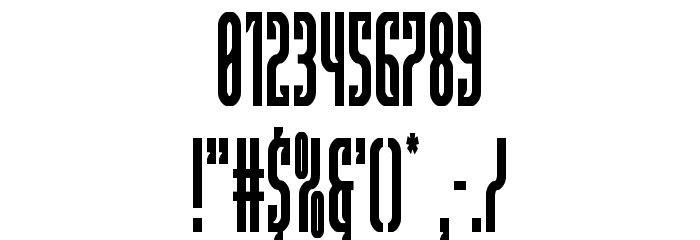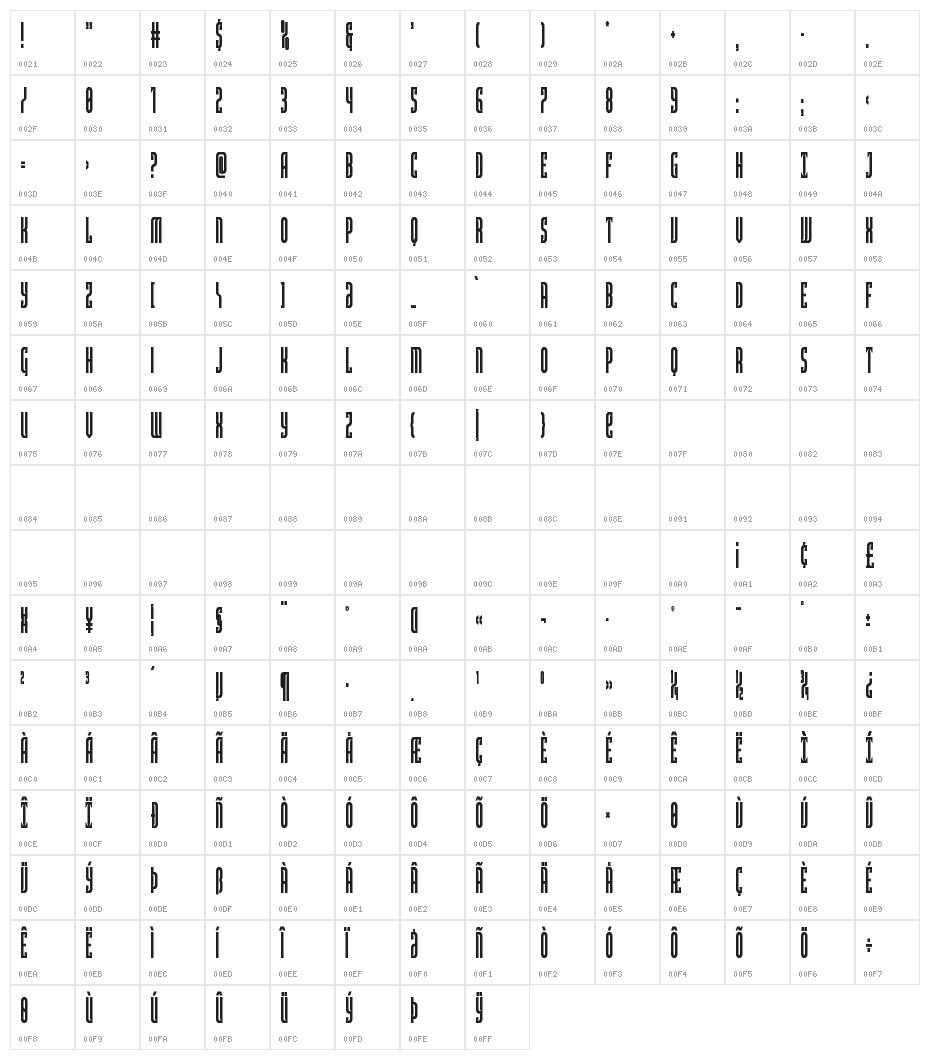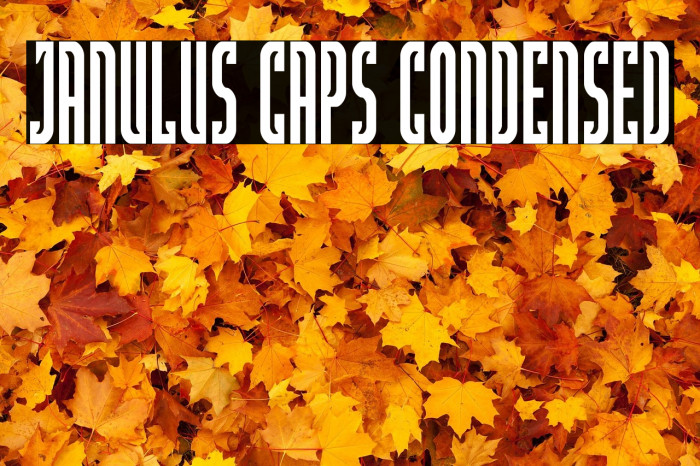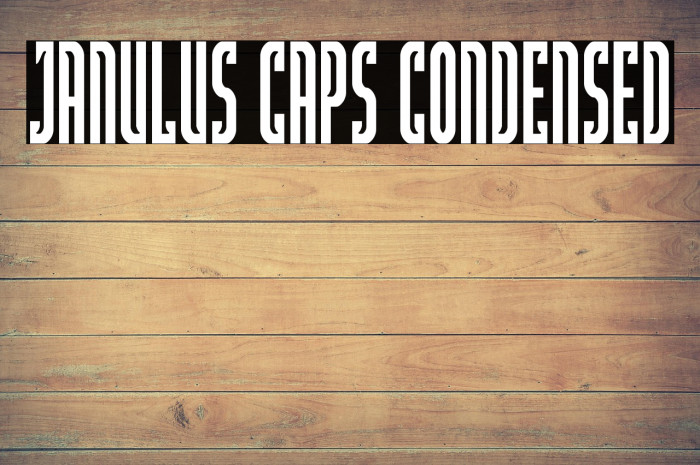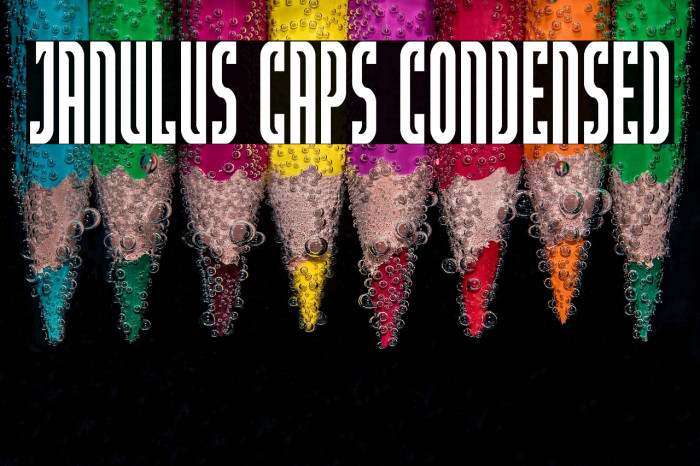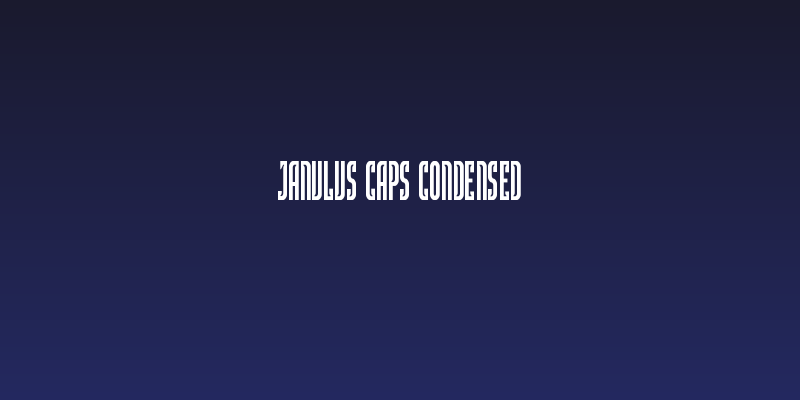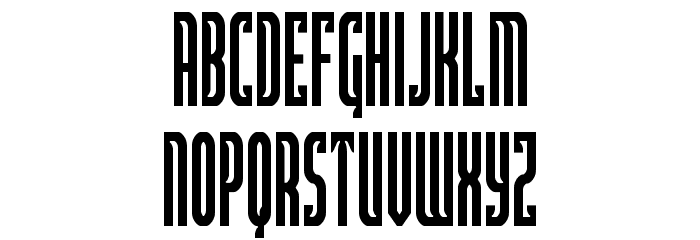
Janulus Caps Condensed Font
Janulus Caps Condensed Description
This font features a bold and condensed style with a strong vertical emphasis, characterized by its tall and narrow letterforms. The uppercase letters are prominent, with sharp angles and a geometric structure that conveys a modern and assertive look. The numerals and special characters maintain the same condensed and bold aesthetic, ensuring consistency across all glyphs. The font's design is suitable for making a strong visual impact, with its high contrast and tight character spacing enhancing its striking appearance.